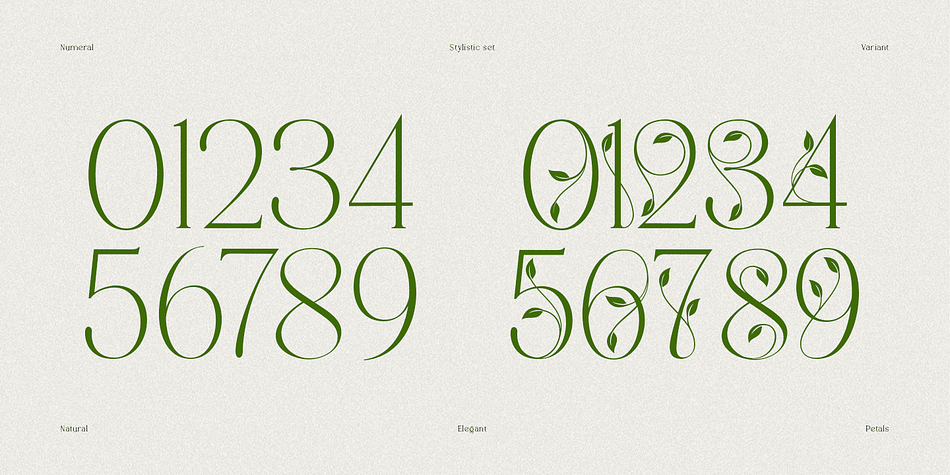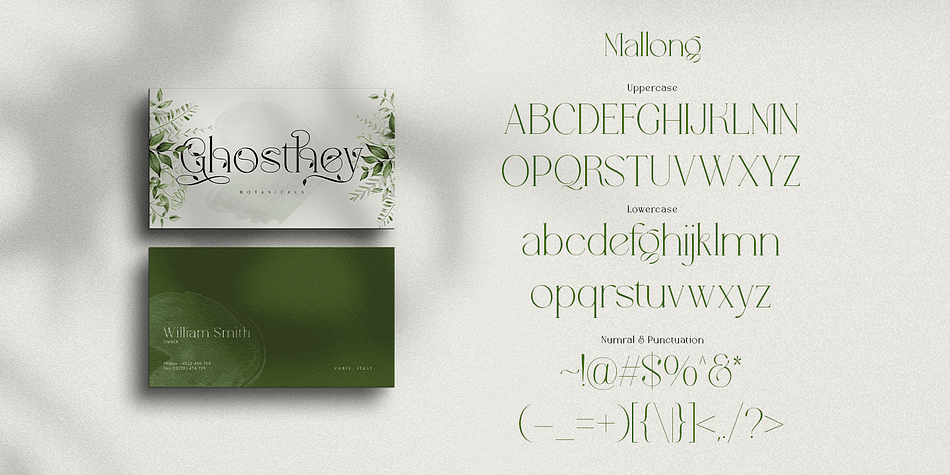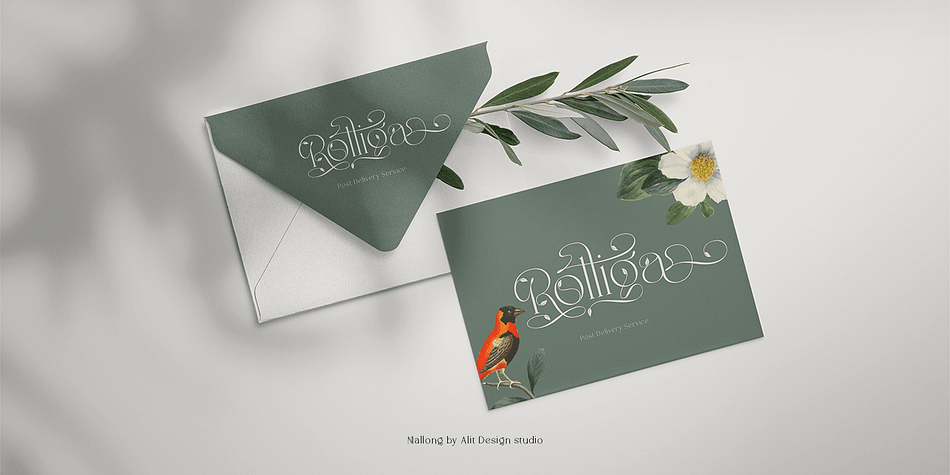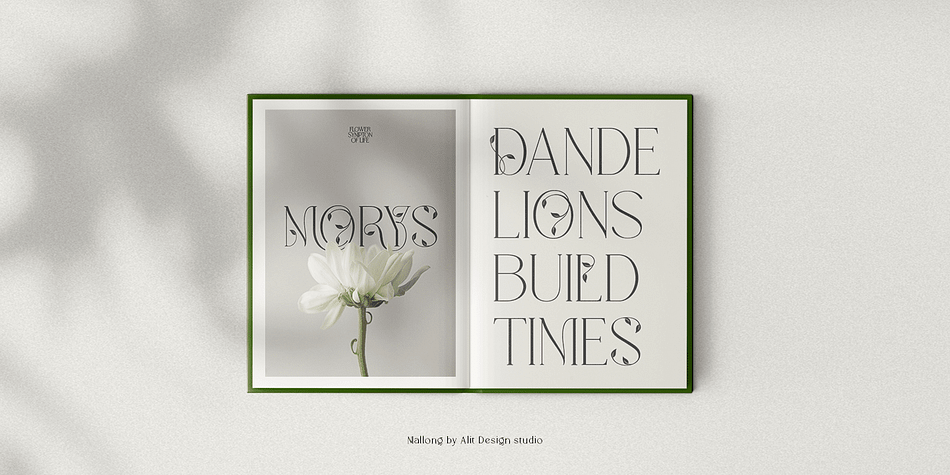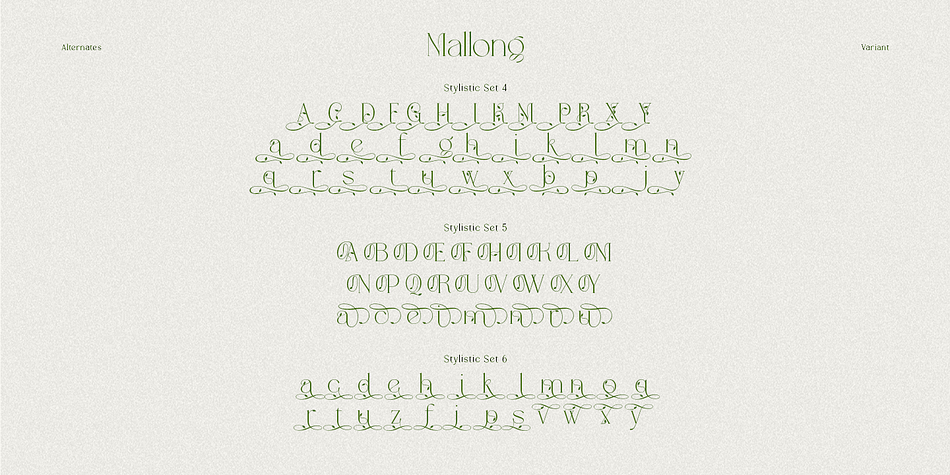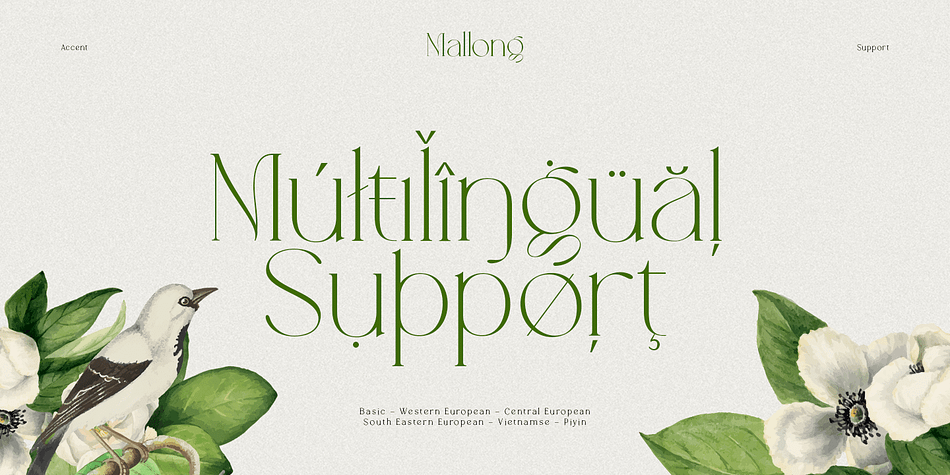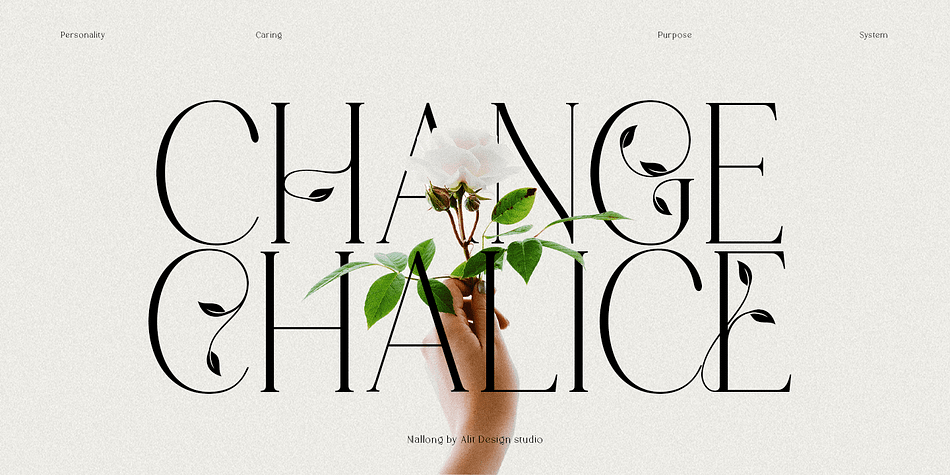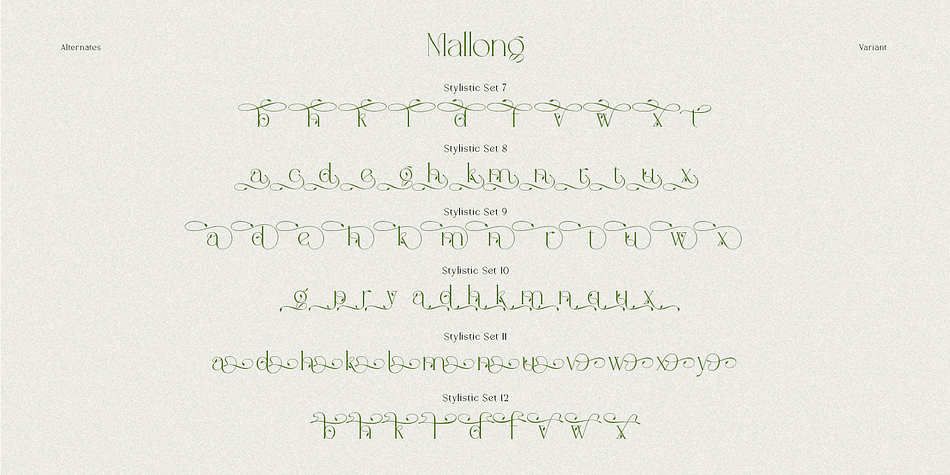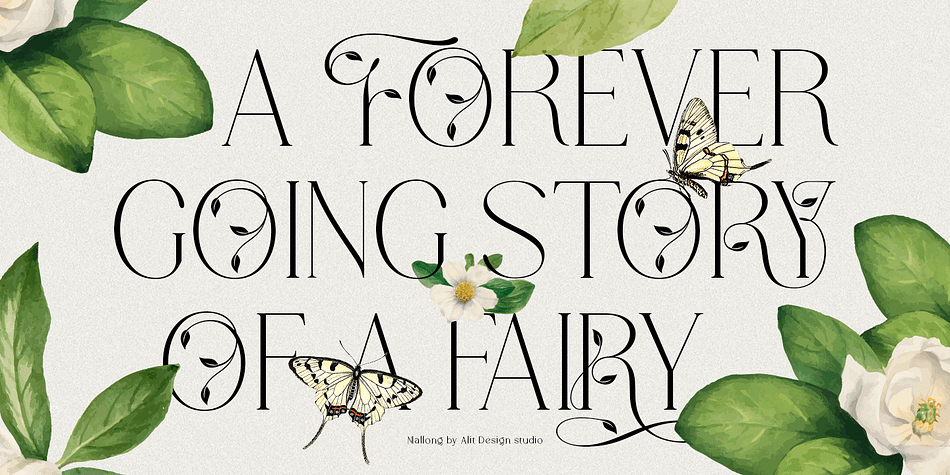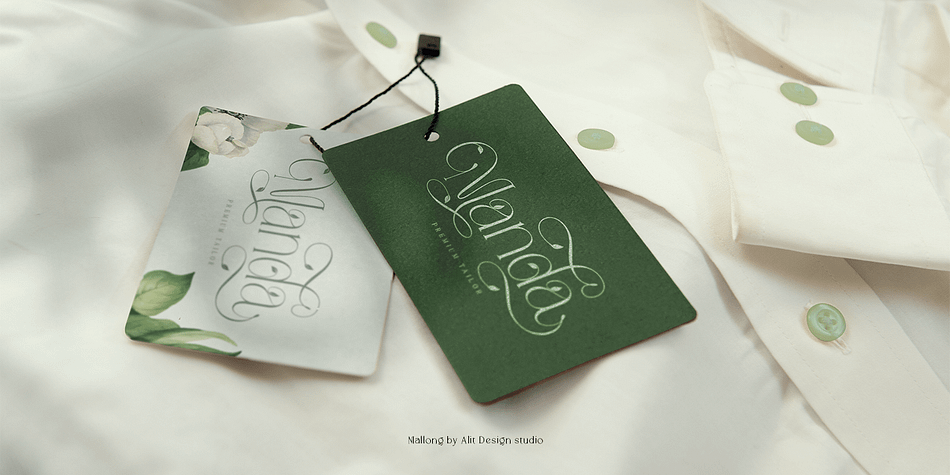
Mallong
Designed by Alit Suarnegara, Mallong is a display serif font family published by Alit Design.
The “Mallong” font is a serif typeface that embodies elegance and naturalness. Its design features classic serif details, combined with graceful curves and a unique leaf-outline swash, that adds a touch of beauty to each character. This font is perfect for creating sophisticated designs with a touch of organic charm.
The “Mallong” font is well-suited for a variety of design projects, including invitations, posters, logos, branding materials, and more. Its elegant serif details and organic-inspired swashes make it an excellent choice for businesses, events, and products that want to convey sophistication and a connection to nature. The multilingual support and PUA unicode features also make “Mallong” an ideal choice for global projects that need to support multiple languages. With its versatility, beauty, and practical features, “Mallong” is a must-have font for any designer’s toolkit.
The “Mallong” font has a total of 853 glyphs including symbol, multilingual.
Language Support : Latin, Basic, Western European, Central European, South European,Vietnamese.